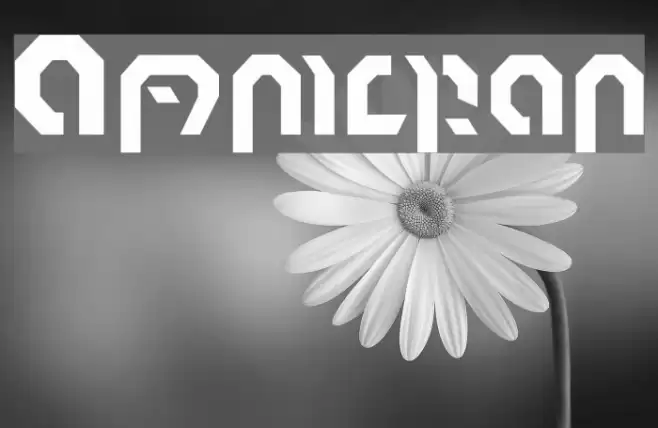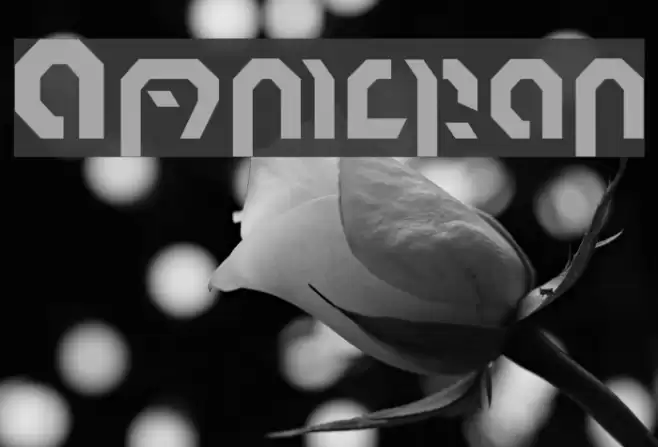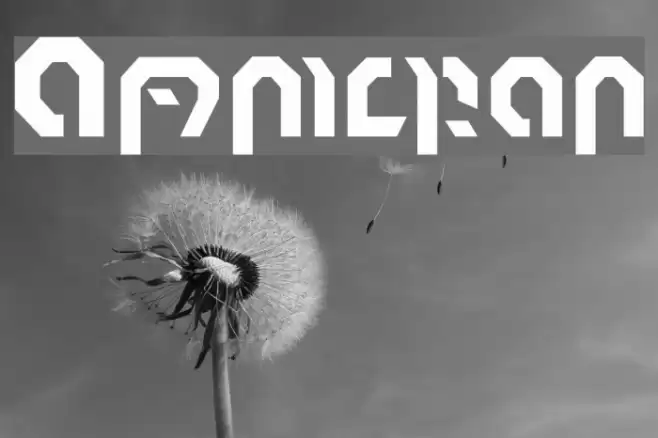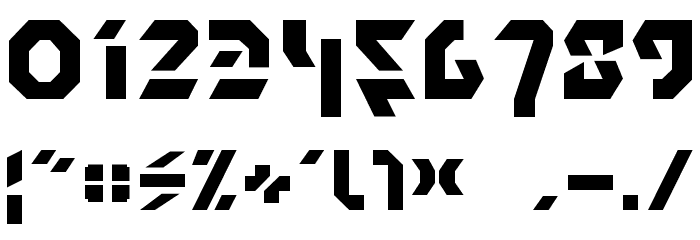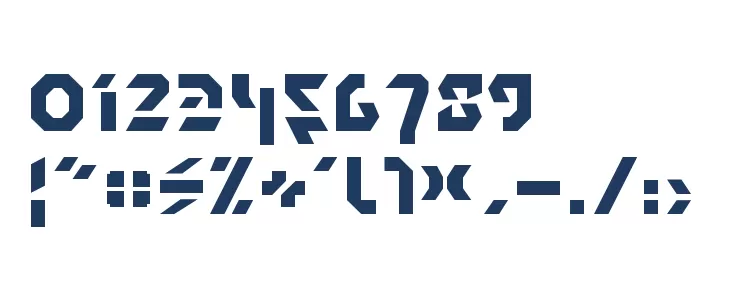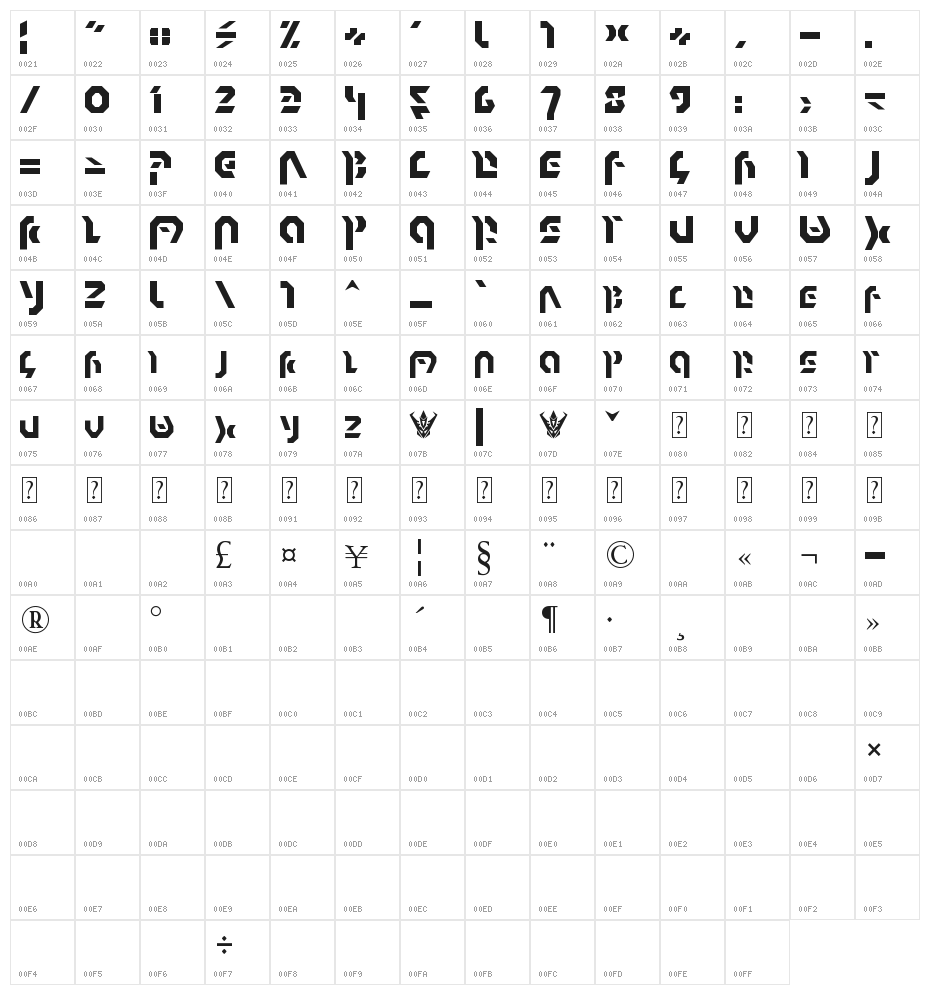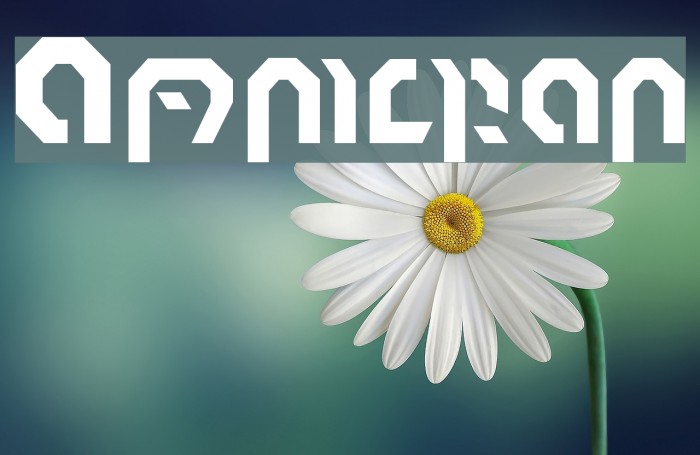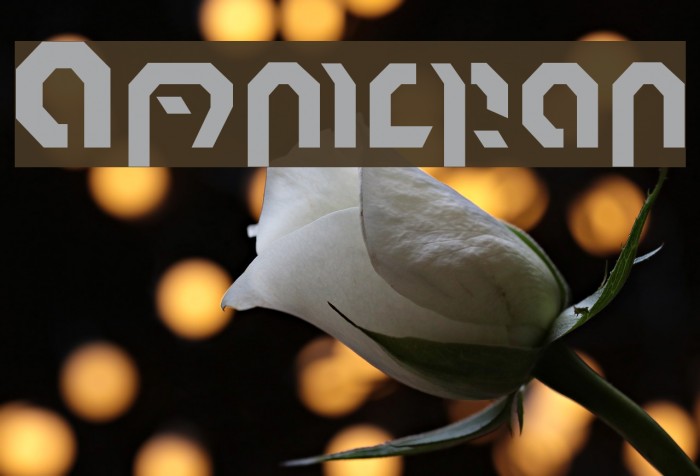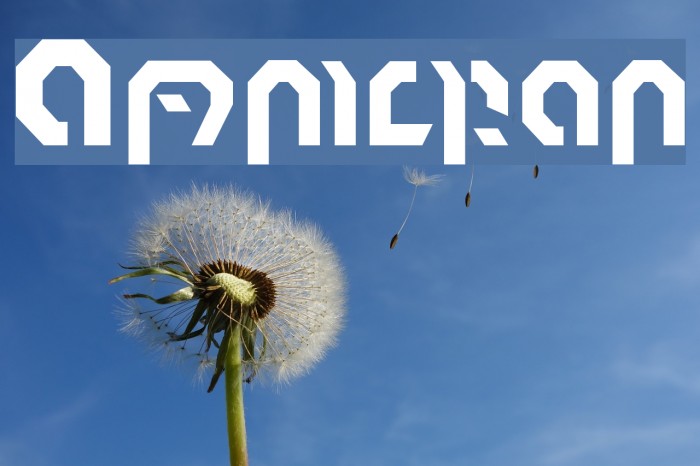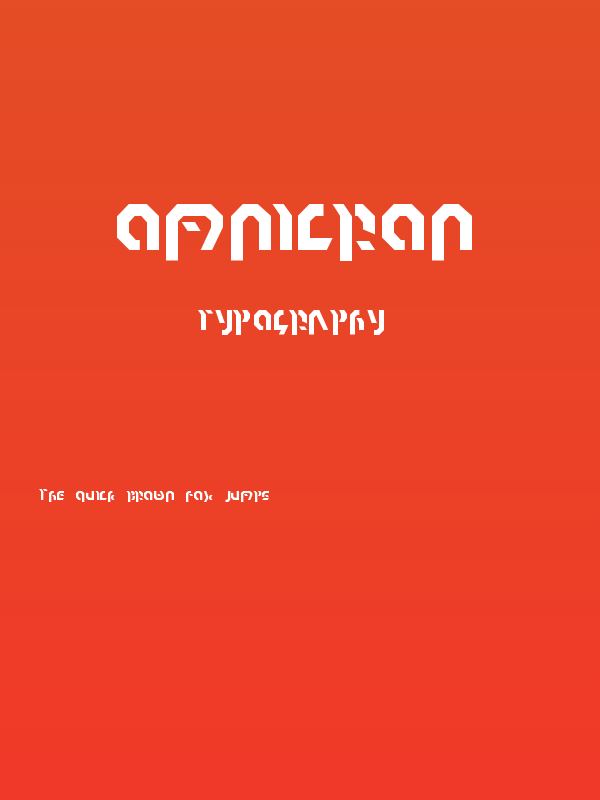
Omnicron Font
Omnicron Description
This font features a bold, geometric design with sharp angles and a futuristic aesthetic. The characters are constructed with thick, block-like strokes that create a sense of strength and modernity. Each letter and number is uniquely stylized, incorporating angular cuts and edges that give the font a distinctive, tech-inspired look. The uppercase and lowercase letters maintain a consistent style, while the numerals and special characters complement the overall design. This font is ideal for projects that require a bold and striking visual impact.
A bold, geometric font with a futuristic and tech-inspired design from Uncategorized fonts.
- Proposed Projects: Ideal for technology branding, sci-fi themed posters, video game titles, and modern logos.